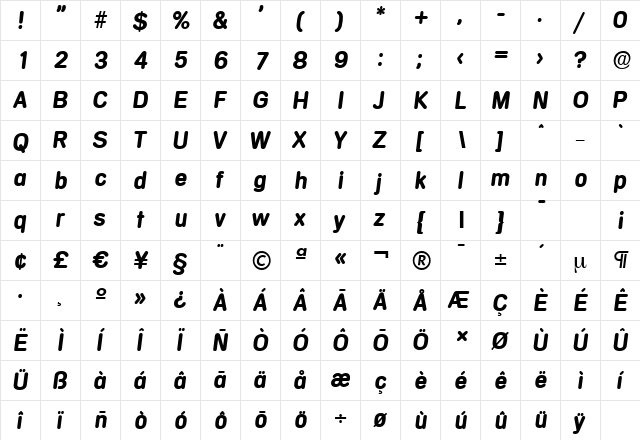
MercedesSerial BoldItalic
Design Context for MercedesSerial Typeface
MercedesSerial offers clean, dependable letterforms without strong stylistic allegiance, making it a practical choice for designers who need flexibility. The dynamic lean of this cut emphasises speed and emphasis in any layout. The heavy weight commands attention and anchors typographic hierarchies.
Pro Tip: Use MercedesSerial for emphasis, pull quotes, and subheadings where its slanted energy can add rhythm to the layout.